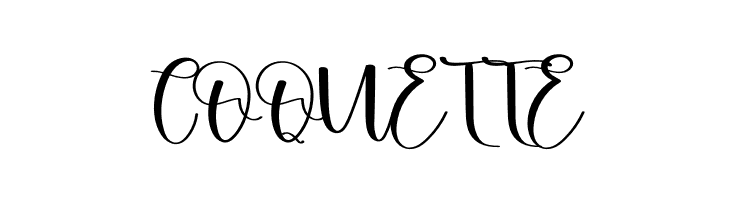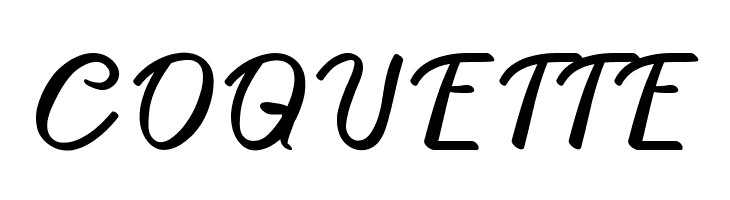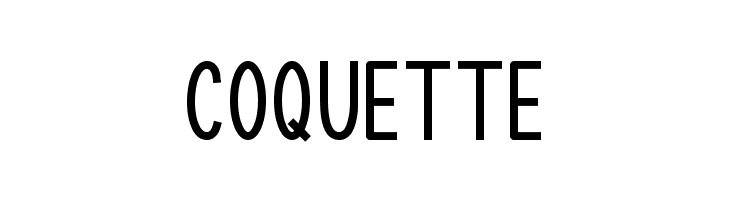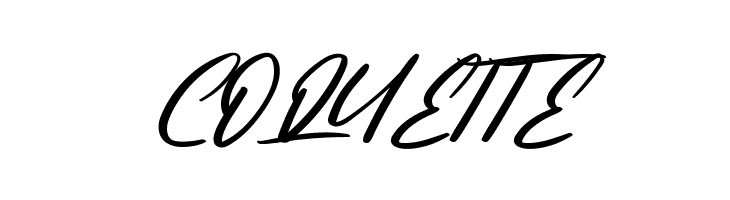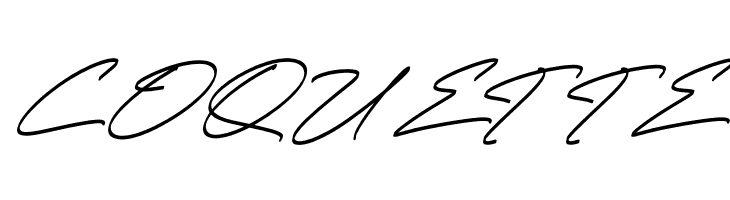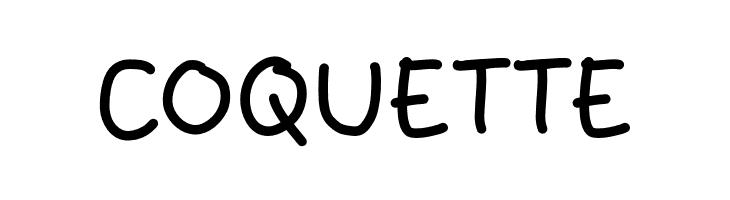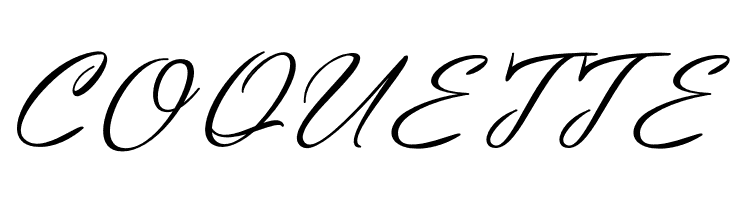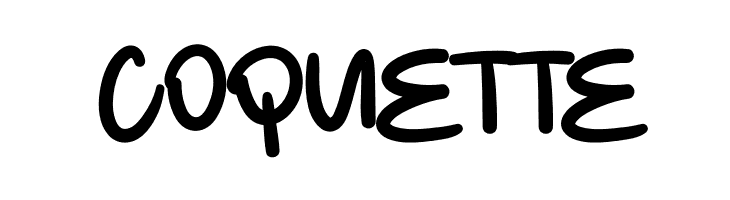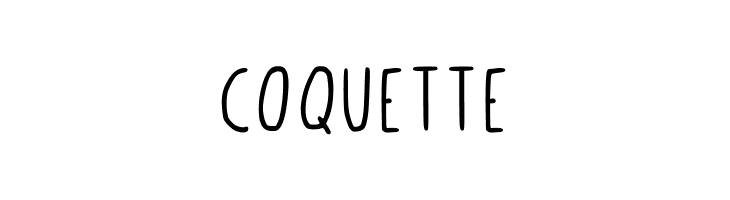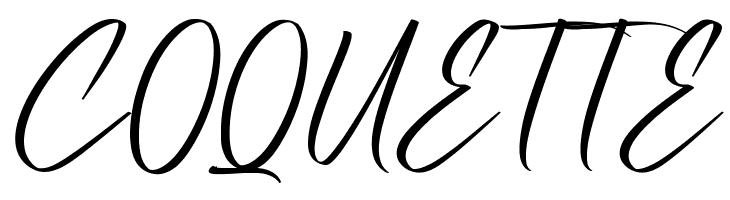
A playful, casual handwritten font with rounded, consistent strokes.
A fluid and elegant handwritten script with a natural, personal touch.
A fluid and elegant handwritten script font with a personal touch.
A bold, handwritten font with dynamic and fluid strokes.
A bold, cursive font with a playful and energetic style.
A playful, bold handwritten font with a smooth, rounded style.
A playful, bubbly font with rounded, hand-drawn characters.
A playful, handwritten font with thin, elongated strokes and a whimsical style.
Playful handwritten font with a whimsical style.
A bold, playful font with rounded, hand-drawn characters.
Handwritten cursive script font.
Elegant cursive script with a handwritten style.
Playful handwritten-style font.
A playful, handwritten font with fluid, dynamic strokes.
A playful, handwritten font with dynamic strokes and a whimsical style.
A playful, handwritten font with rounded edges and a casual style.
A playful, handwritten font with dynamic strokes and a whimsical style.
A playful, bold handwritten font with rounded edges and consistent strokes.
Bold, flowing script with a handwritten style.
A playful, handwritten font with dynamic strokes and an informal style.